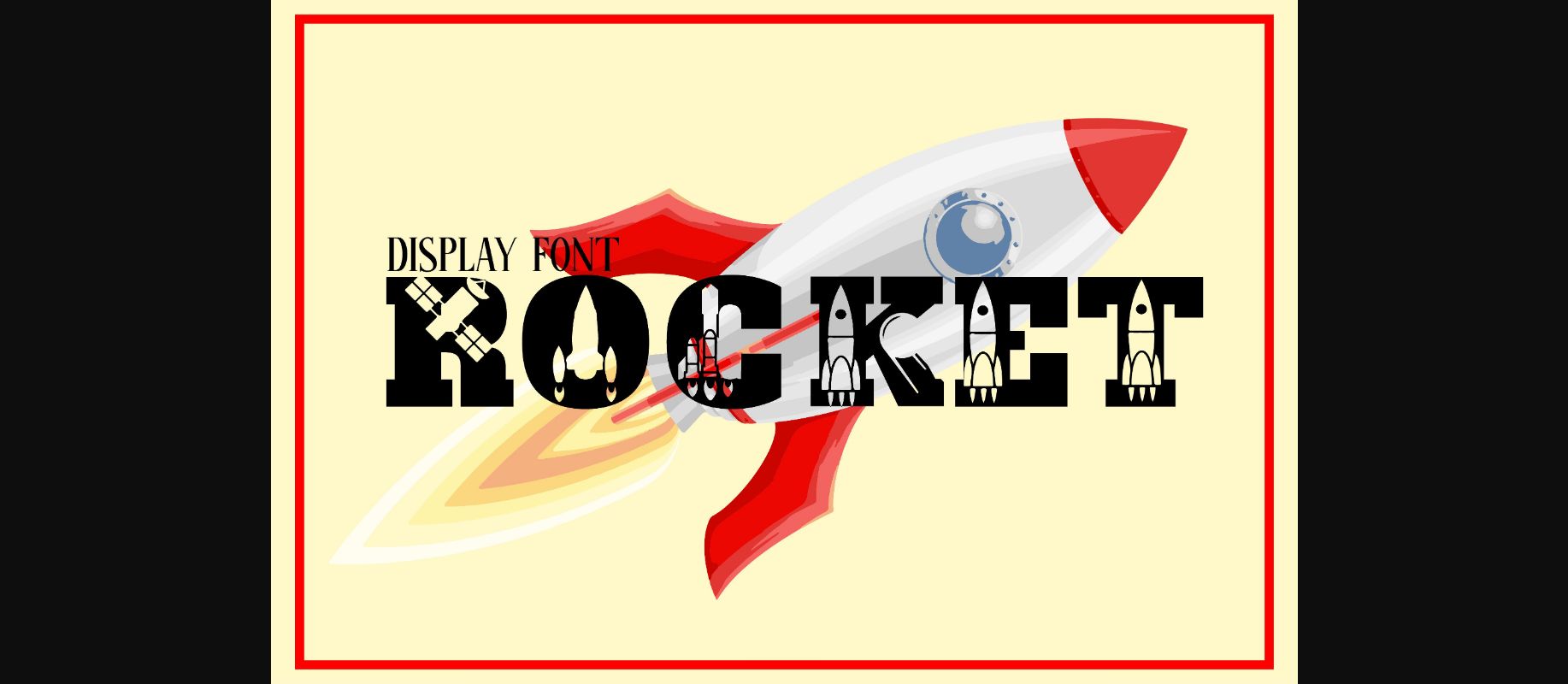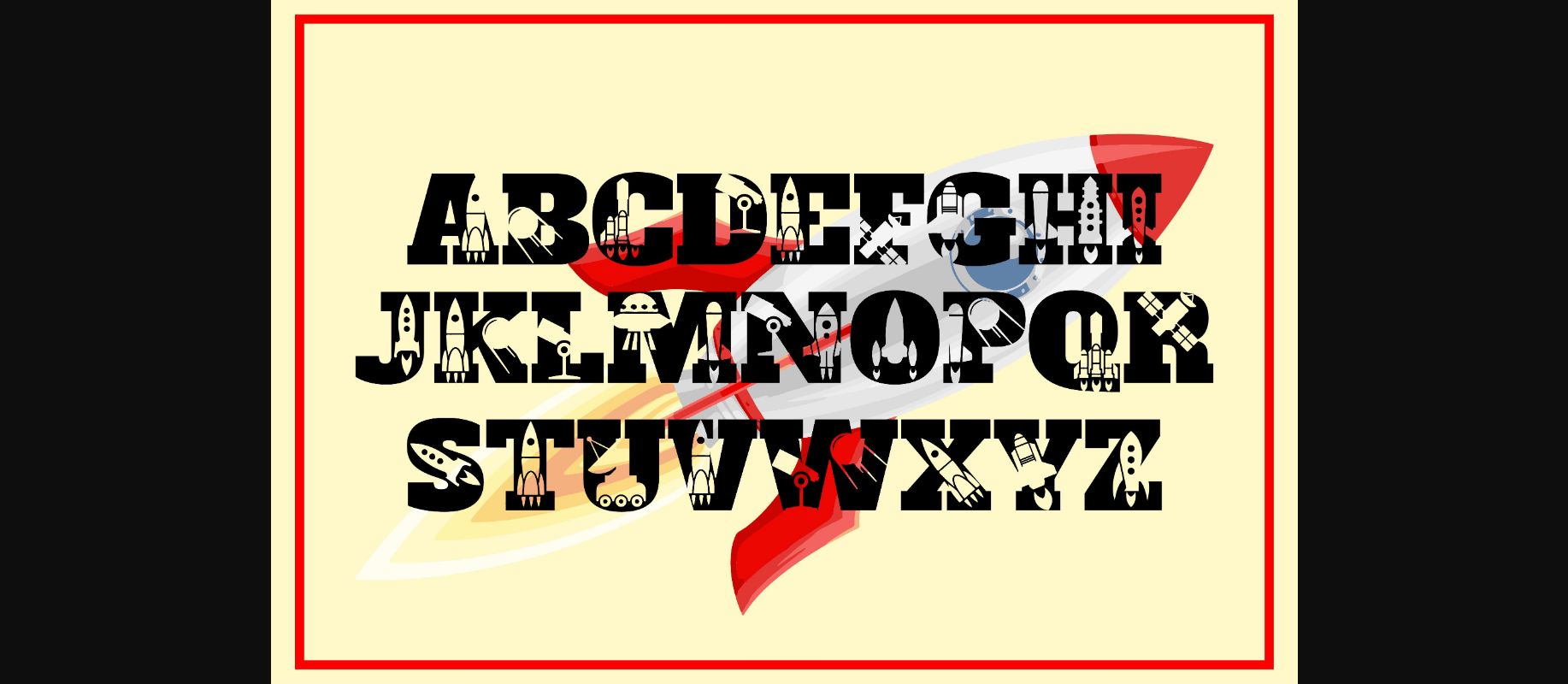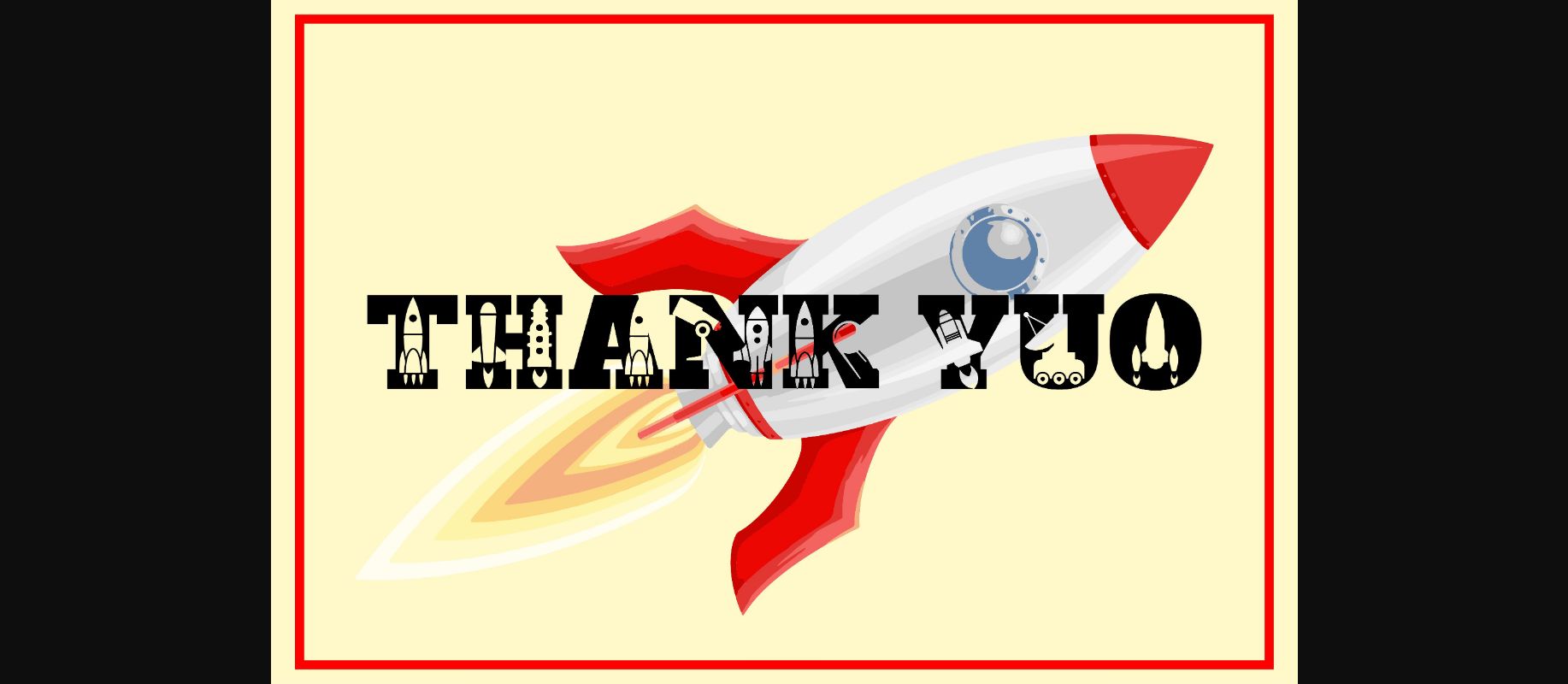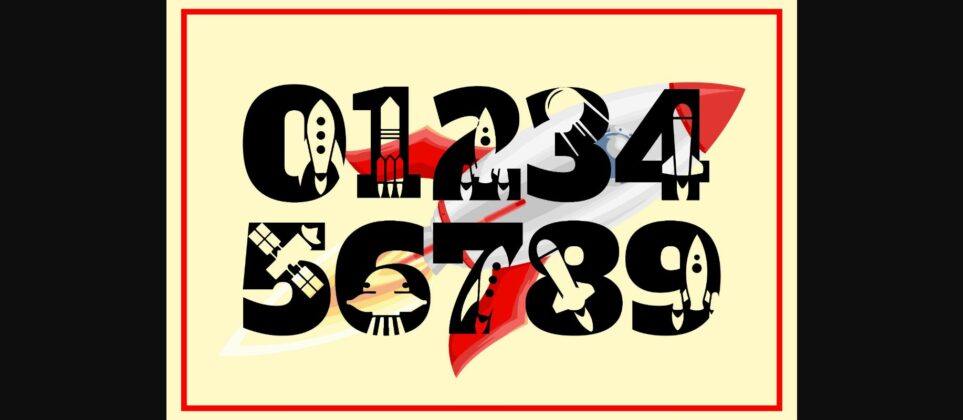
HomeDecorative FontsRocket Font Decorative Fonts Rocket Font FacebookXPinterestWhatsApp 1 of 6 ... Rocket Font Poster 2... Rocket Font Poster 3... Rocket Font Poster 4... Rocket Font Poster 5... Rocket Font Poster 6... About Rocket Font Rocket is a thick lettered and incredibly unique decorative font. It can be used for various design ideas, particularly those related to children’s games, science, space exploration, and school. DOWNLOAD NOW People also explored Christmas Doodles Aviano Sans Amarila Font Mailerlite Font Hello Sweety Font Monogram Christmas Font Shocker Font Feldiora Font Brighton Font 265 0 TagsRocketRocket Font Previous articleKanjuro FontNext articleWish Font LEAVE A REPLY Cancel reply Comment: Please enter your comment! Name:* Please enter your name here Email:* You have entered an incorrect email address! Please enter your email address here Website: Save my name, email, and website in this browser for the next time I comment. Personal Use Free Moon Light Personal Use Free Read more about this font Delions Personal Use Free Read more about this font The Bocah Personal Use Free Read more about this font Waturaden Personal Use Free Read more about this font BLOG How to Cut Any Font on Cricut: Convert a Font to SVG (Free) Turn any font into a clean SVG so it cuts crisp on Cricut - a quick 3-step workflow using a free font-to-SVG tool. Exploring Font Trends Best Fonts for YouTube Videos: Make Your Thumbnails Stand Out Fonts That Capture the Spirit of New York City